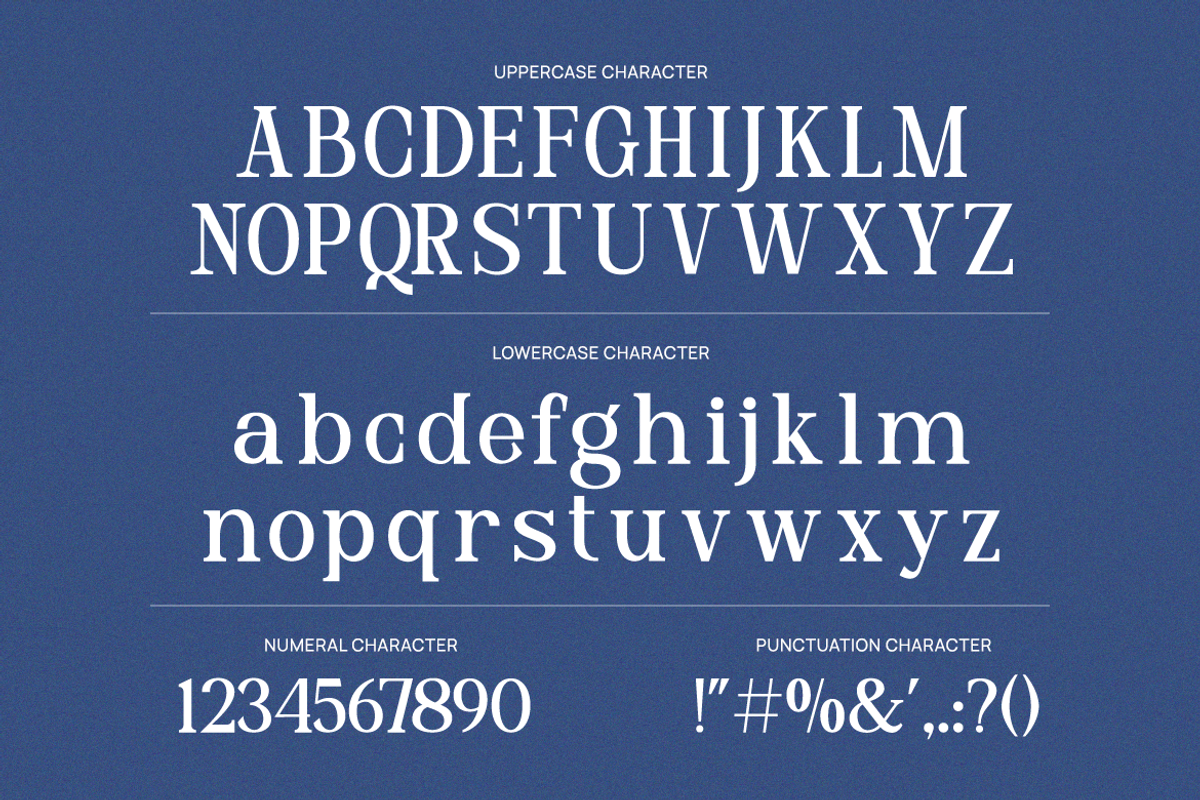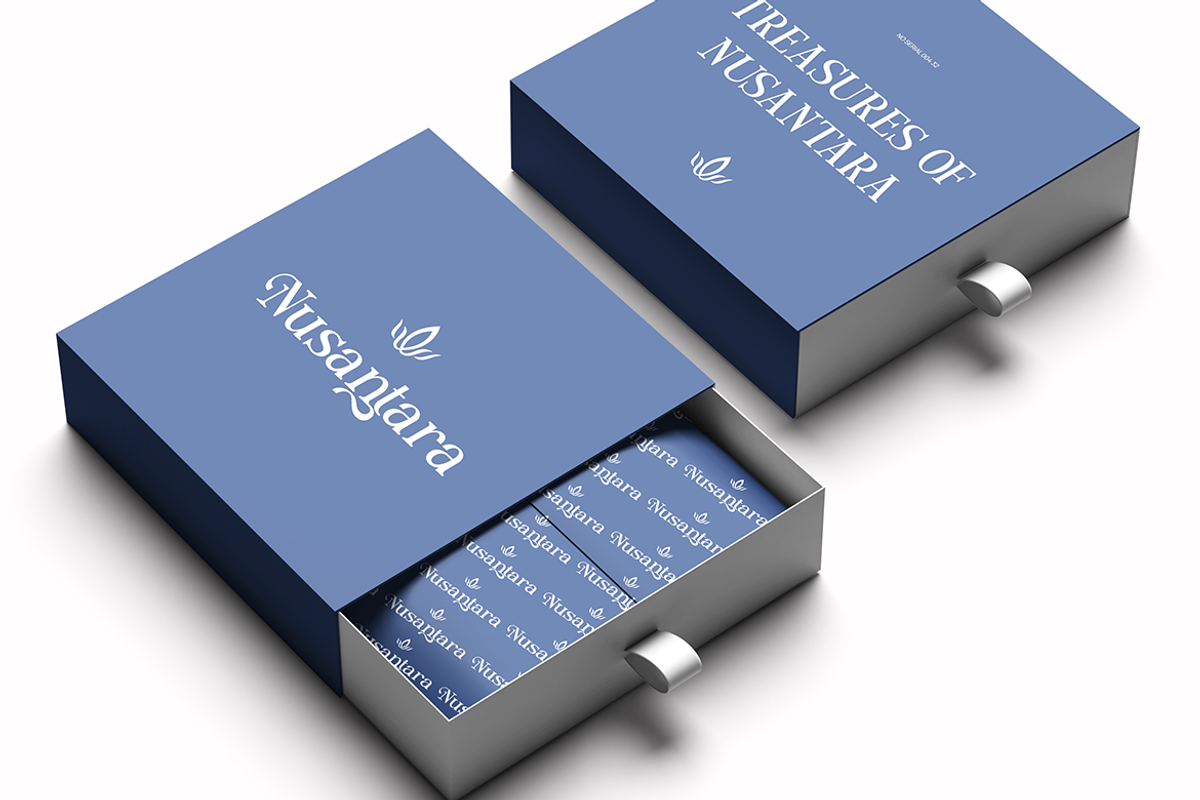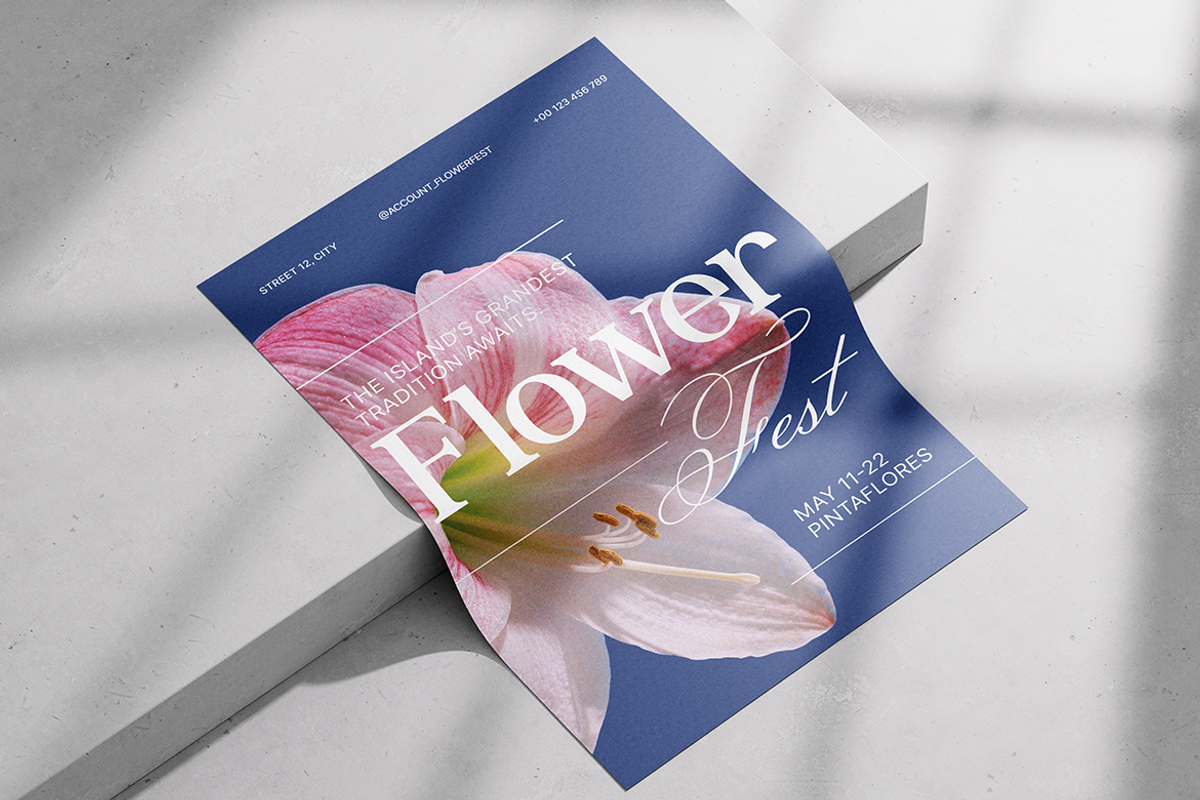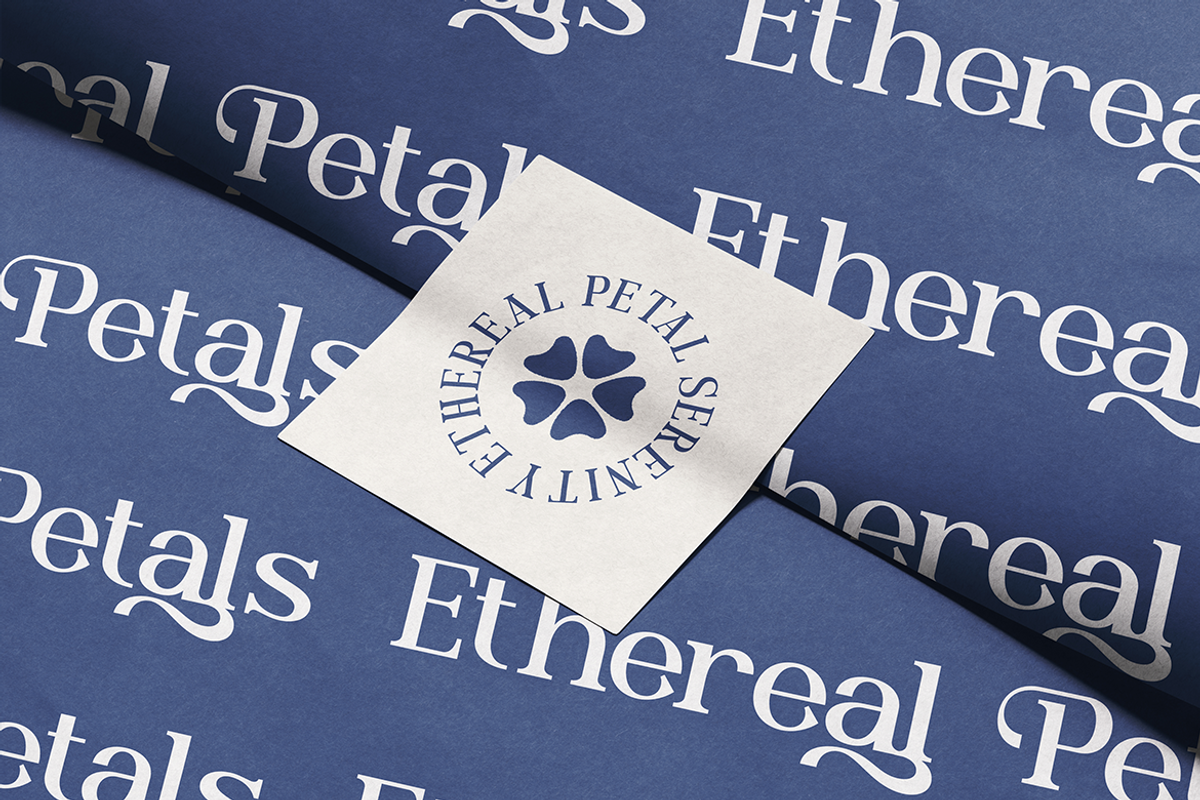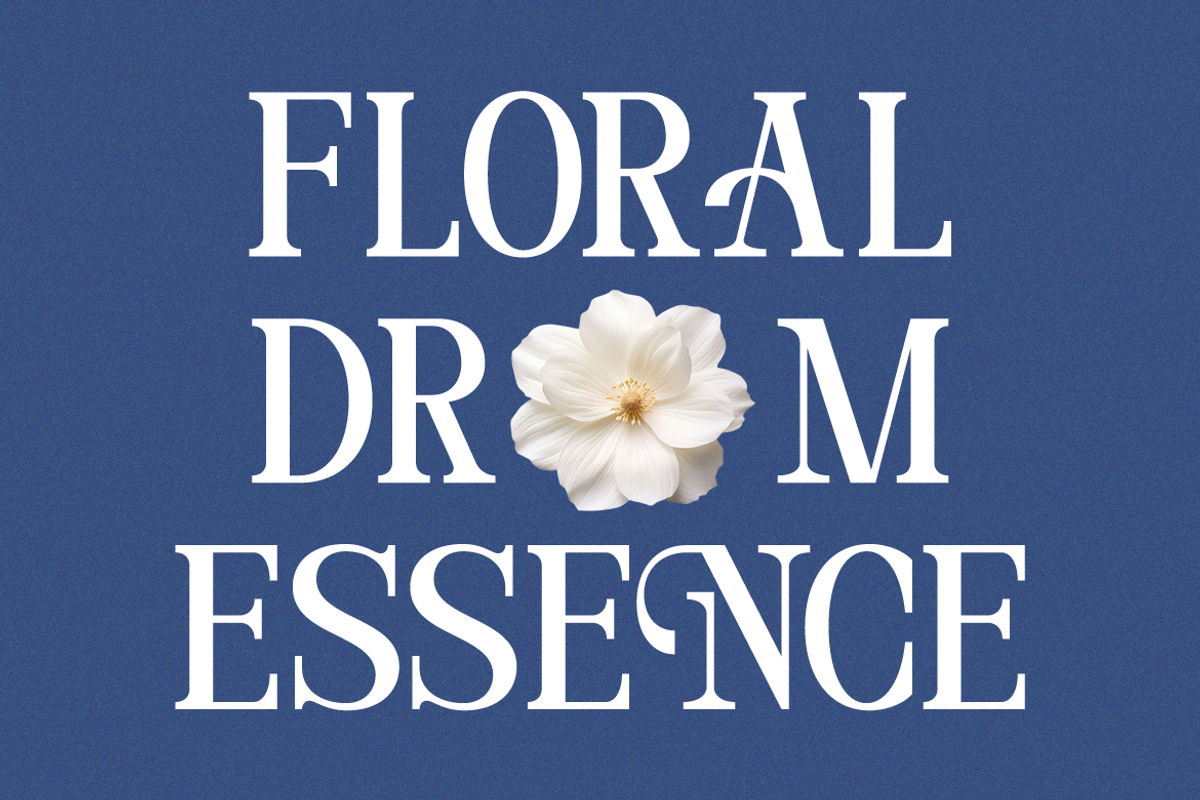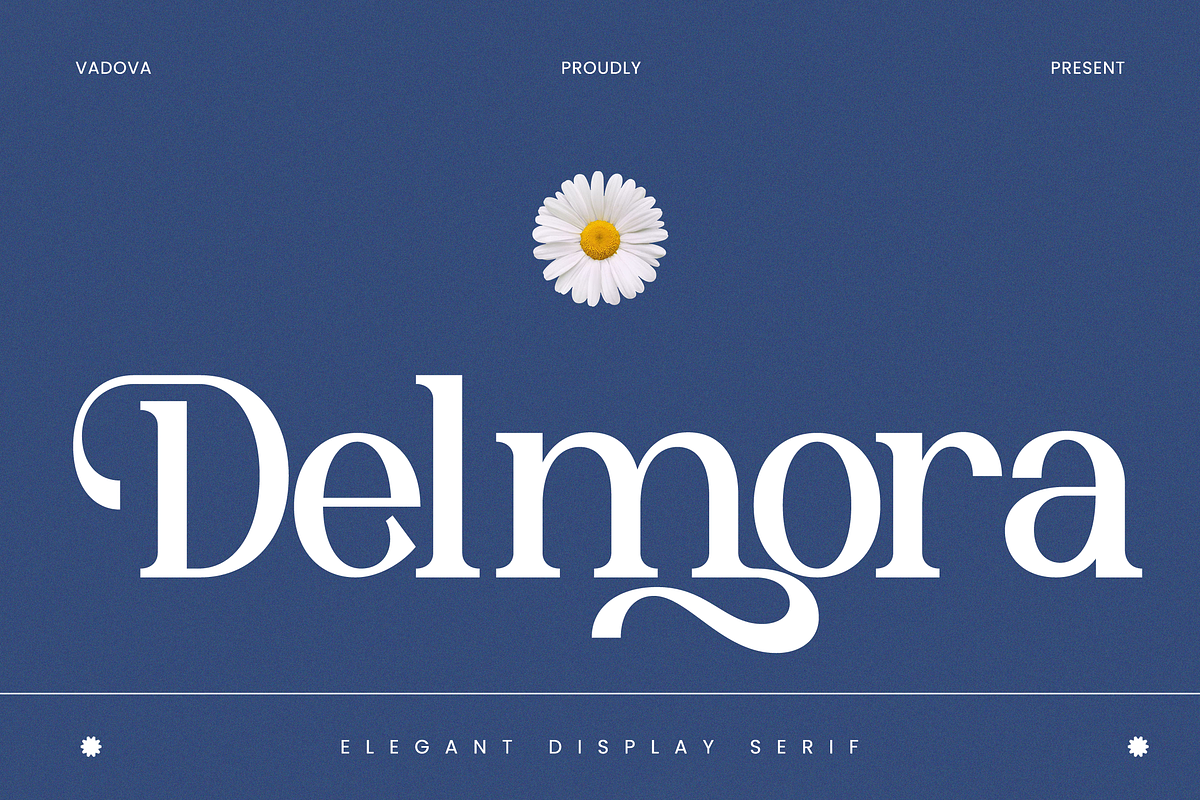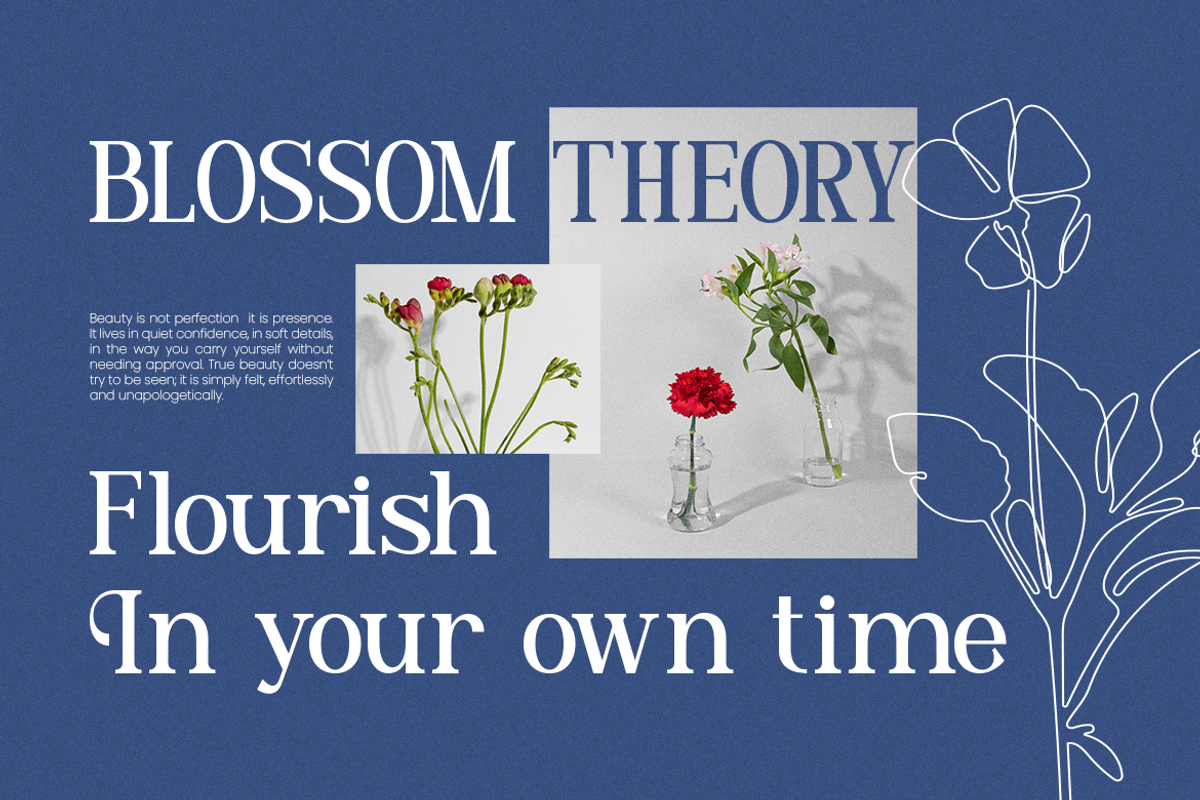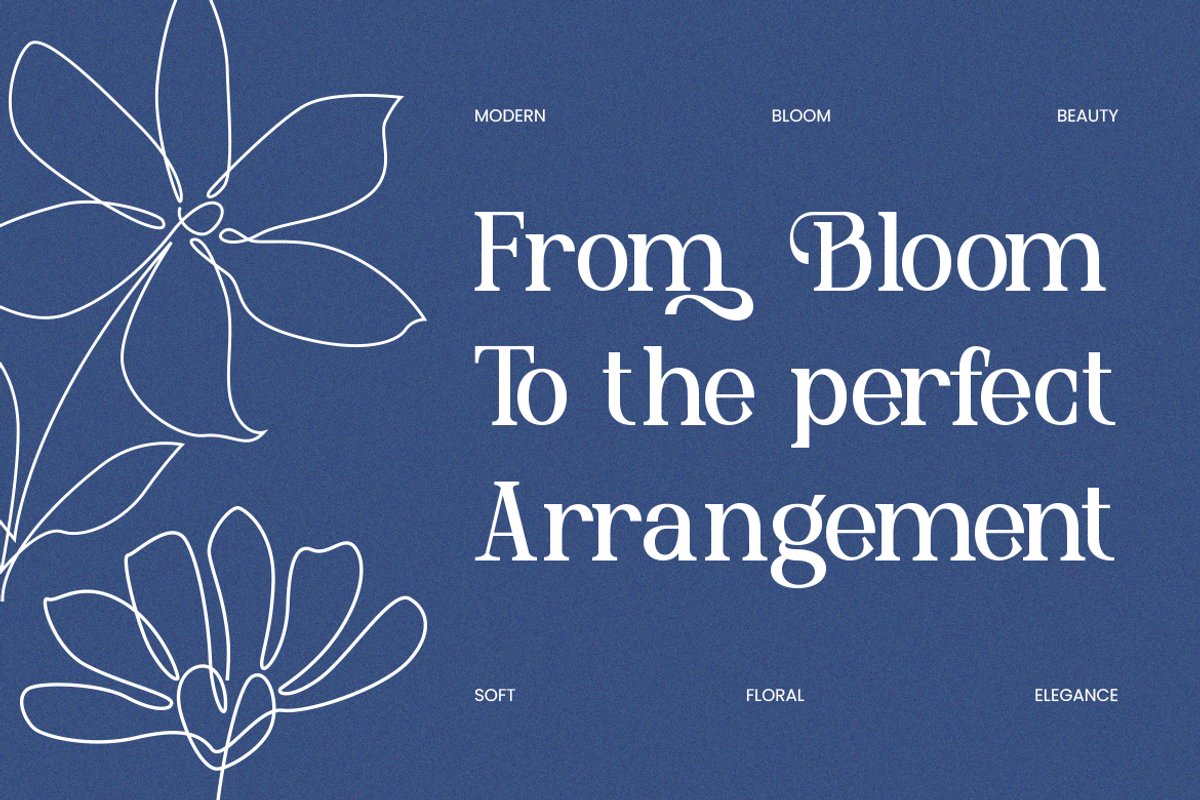
Delmora Elegant Display Serif Font
Delmora features a graceful elegant display serif typeface with refined contrast, decorative curves, and luxurious floral-inspired details crafted for premium typography compositions. The font includes uppercase, lowercase, numerals, punctuation and stylish alternates suitable for branding, editorial, and sophisticated visual storytelling. Its balanced serif structure and ornamental touches create a timeless aesthetic for logos, packaging, invitations, and fashion-forward layouts.
Relevance and Use Cases is perfect for luxury branding, fashion editorials, beauty packaging, wedding invitations, boutique logos, magazine headlines, floral themed designs, premium product labels, social media branding, feminine marketing visuals, and elegant typography-driven creative projects.
- Elegant display serif design with refined classical proportions
- High-contrast strokes paired with graceful curves and delicate serifs
- Subtle ornamental details and flowing swashes for luxurious character
- Balanced letter spacing with sophisticated structure for editorial impact
- Floral-inspired aesthetic with timeless forms for premium branding and display use
- Luxury brand identity systems seeking graceful and sophisticated character
- Editorial magazines, fashion campaigns, and high-end book cover layouts
- Beauty packaging, perfume labels, and boutique product branding designs
- Wedding stationery, floral invitations, and romantic event materials
- Social media templates and premium marketing visuals with timeless elegance